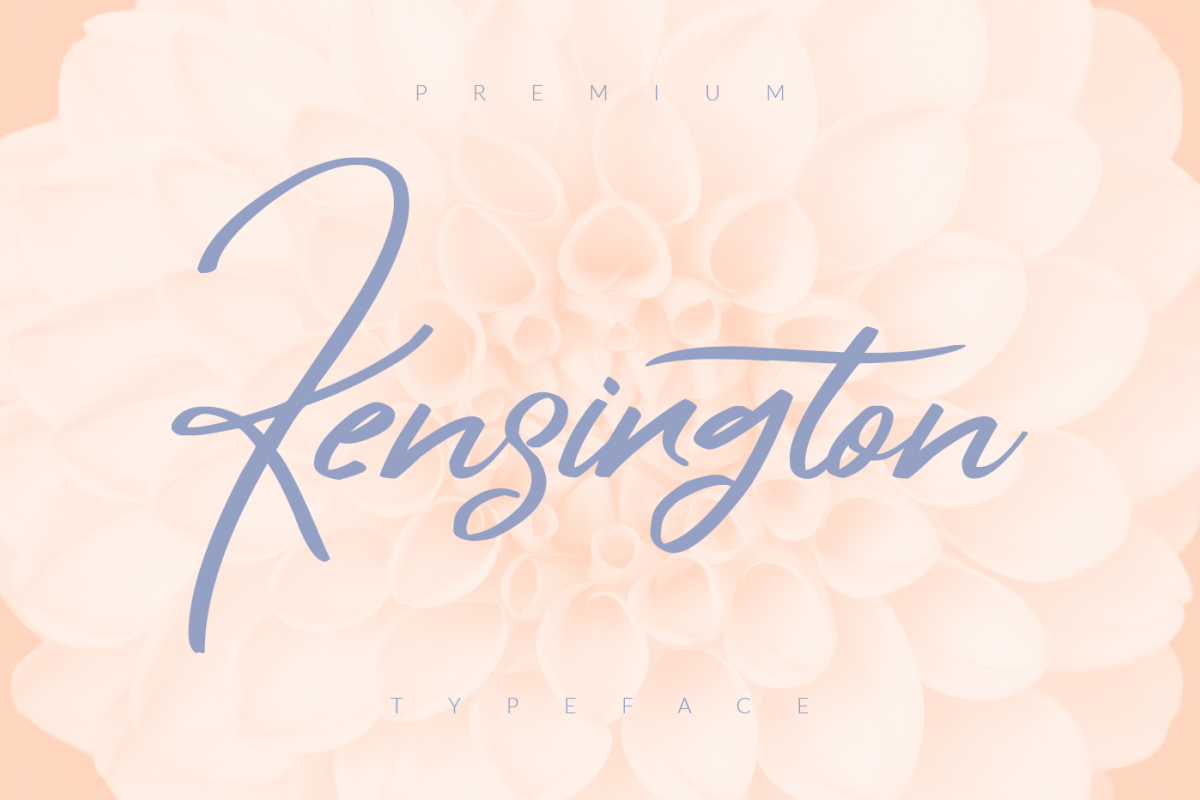
Kensington
About Kensington
*** INTRODUCTION ***
Let me introduce you the font Kensington. It flows like a signature while you type it. It really shows the art of hand-work. It is very legible even though its nature looks like it has extreme lines. It is really unique in this regard. Awesome! Isn't it? :)
** GREAT FOR **
• Characteristic company logos
• Blog pages
• Logo of brands
• Projects you need to utilize a premium font
• The projects that require a font including lots of alternates.
• Numbers and Symbols
• Alternate Characters
• Swashes